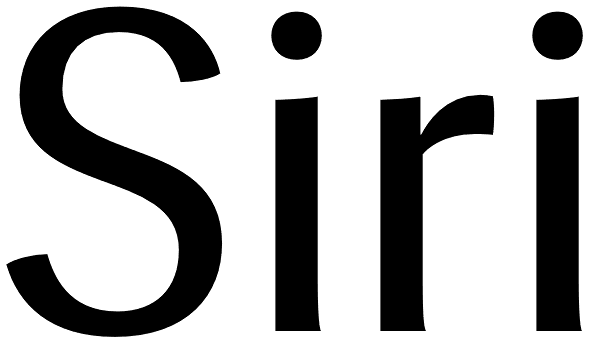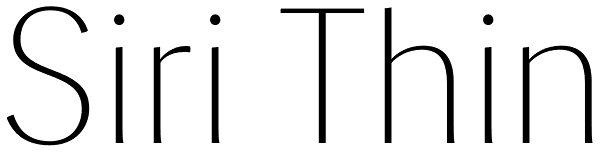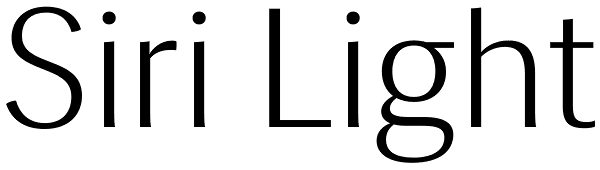
Siri
The typeface Siri is a labour of love. A love for a Scandinavian tradition that we try our damnedest to keep evolving. A love for letters, original and bold, practical and beautiful. A love for the craft that helps create practical and beautiful...